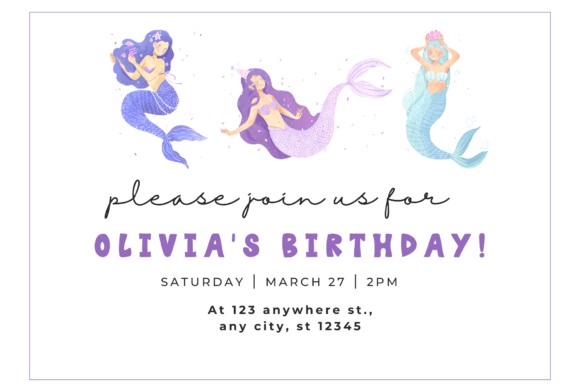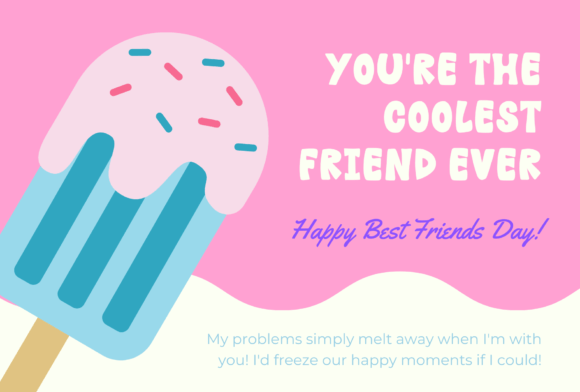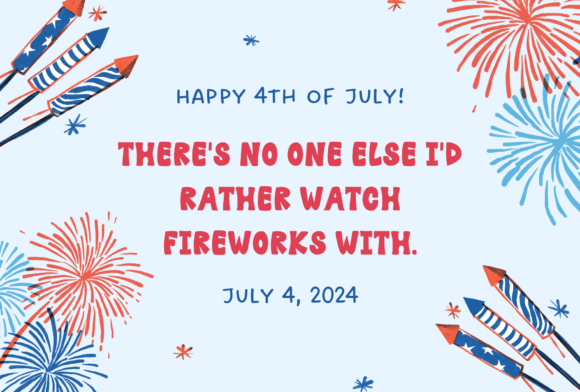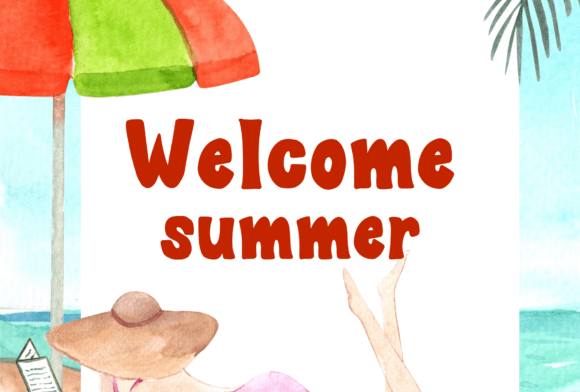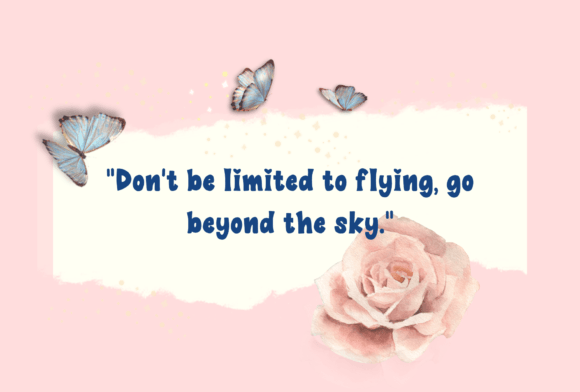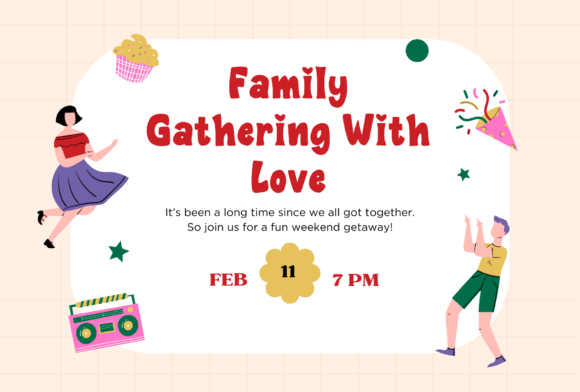
Inject Whimsy and Charm into Your Designs with Butterfly Font
Are you tired of using the same old fonts in your designs? Look no further than Butterfly, a delightful handwritten font that’s sure to add a touch of whimsy and charm to your creations. With its playful strokes and quirky appeal, Butterfly is the perfect choice for designers and crafters looking to add some personality to their work.
The Perfect Font for Unique Greeting Cards
One of the most popular uses for Butterfly font is in creating one-of-a-kind greeting cards. Whether you’re designing a birthday card, a wedding invitation, or a simple thank-you note, Butterfly’s playful strokes make it an enchanting choice. The font’s whimsical feel adds a personal touch that’s sure to make your cards stand out from the crowd.
Imagine pairing Butterfly with a bright, colorful design to create a greeting card that’s as sweet as it is stylish. The font’s unique charm will add an extra layer of personality to your design, making it a keepsake that the recipient will treasure for years to come.
Add a Touch of Whimsy to Your Products
Butterfly font isn’t just limited to greeting cards – it’s also perfect for adding a touch of whimsy to a wide range of products. From pillows and planners to mugs and T-shirts, Butterfly’s quirky appeal fashions unique embellishments that are sure to delight.
Imagine a brightly colored pillow with a playful quote or phrase in Butterfly font – it’s the perfect way to add some personality to a room. Or, picture a set of stickers or keychains featuring a fun design in Butterfly – they’re sure to be a hit with friends and family.
One of the best things about Butterfly font is its versatility. The font can be used for everything from crafting and DIY projects to commercial designs and branding. Whether you’re a professional designer or a hobbyist crafter, Butterfly is sure to inspire your creativity.
Some ideas for using Butterfly font include:
- Designing custom stickers and labels
- Creating personalized gifts, such as monogrammed tote bags or customized phone cases
- Adding a touch of whimsy to your planner or journal
- Designing unique and eye-catching social media graphics
- Creating custom embroidery or appliqué designs for clothing and home decor
Why Choose Butterfly Font?
So why choose Butterfly font over other handwritten fonts? Here are just a few reasons:
- Unique charm: Butterfly font has a distinctive, whimsical feel that’s sure to add personality to your designs.
- Playful strokes: The font’s playful strokes make it perfect for creating fun and eye-catching designs.
- Versatility: Butterfly font can be used for everything from crafting and DIY projects to commercial designs and branding.
- Easy to read: Despite its playful feel, Butterfly font is easy to read, making it perfect for designs that need to be both stylish and functional.
Get Ready to Add Some Whimsy to Your Designs
If you’re looking for a font that’s sure to add some whimsy and charm to your designs, look no further than Butterfly. With its playful strokes and quirky appeal, Butterfly is the perfect choice for designers and crafters who want to create unique and eye-catching designs.